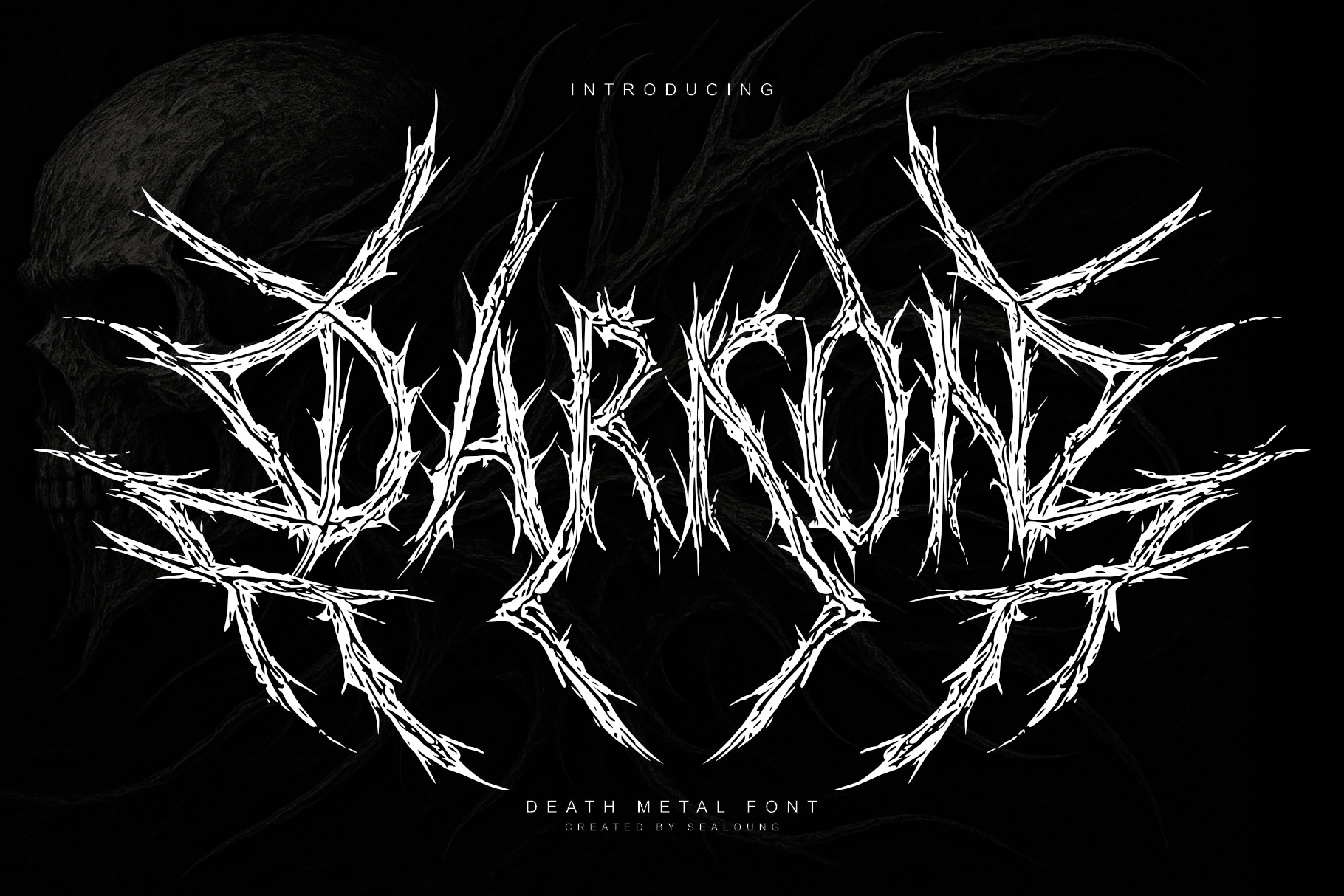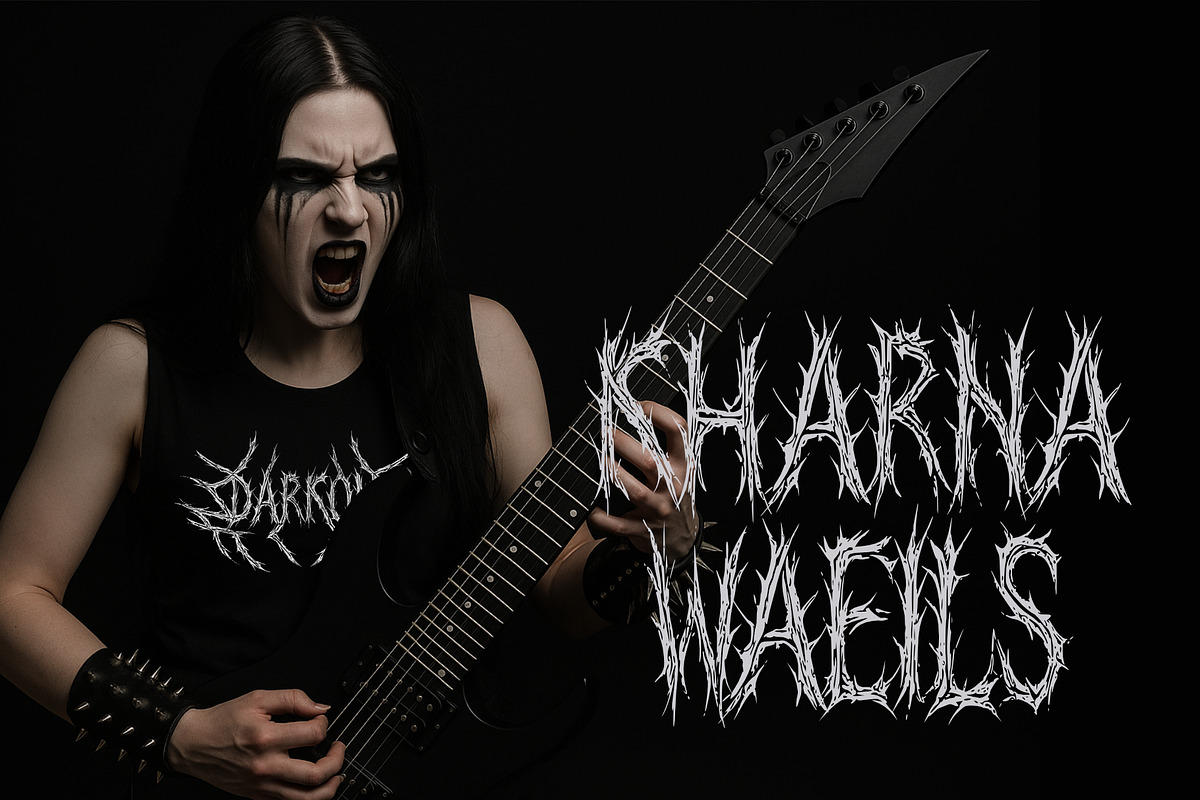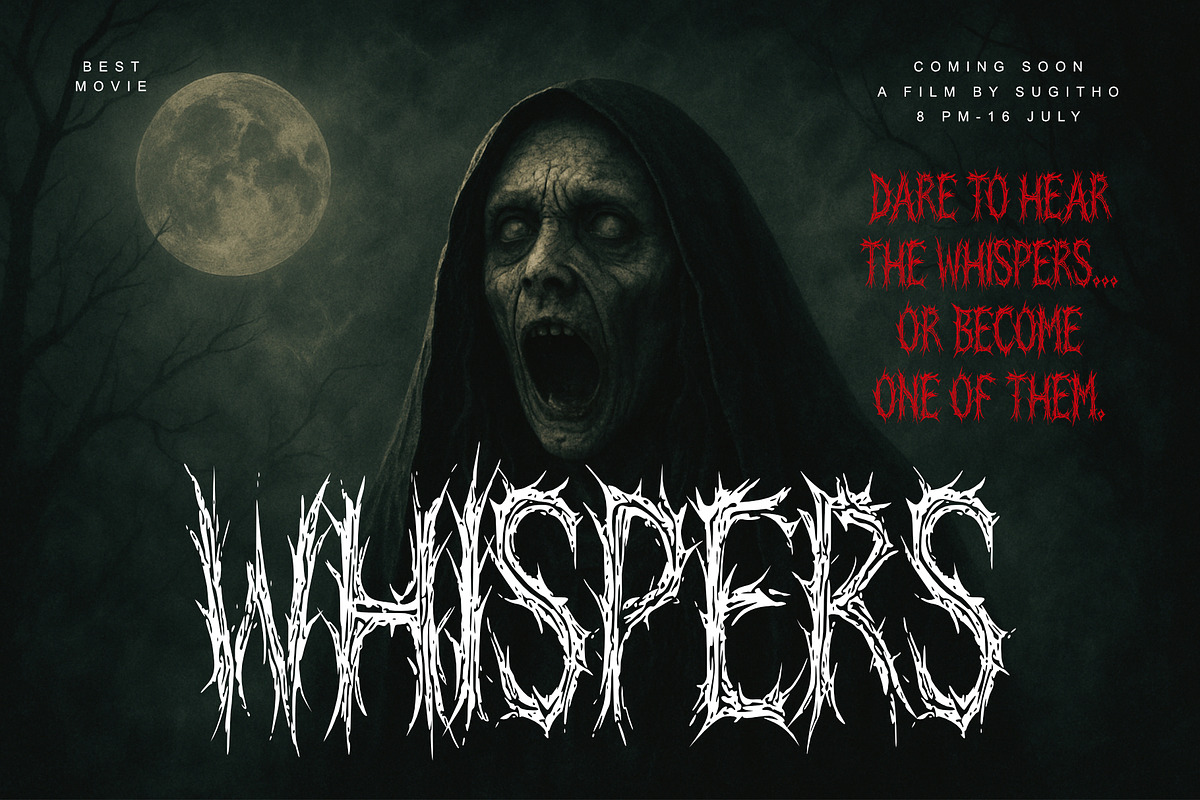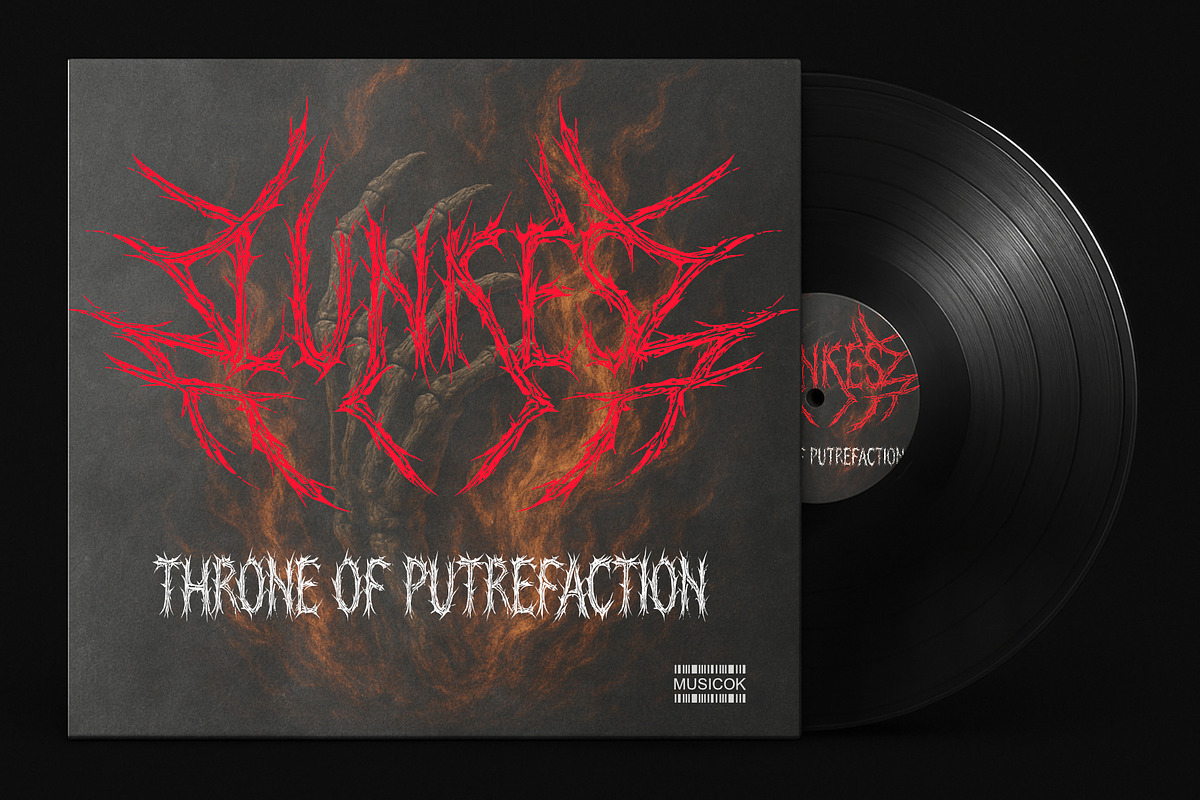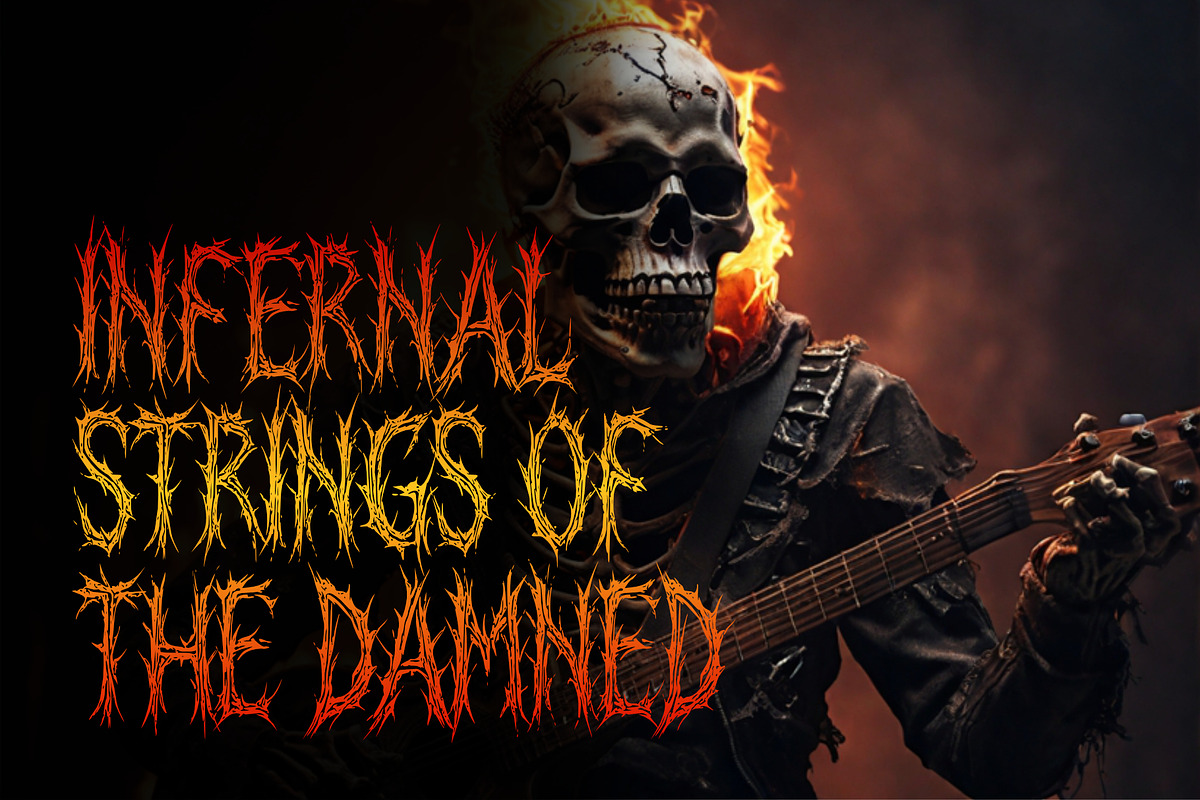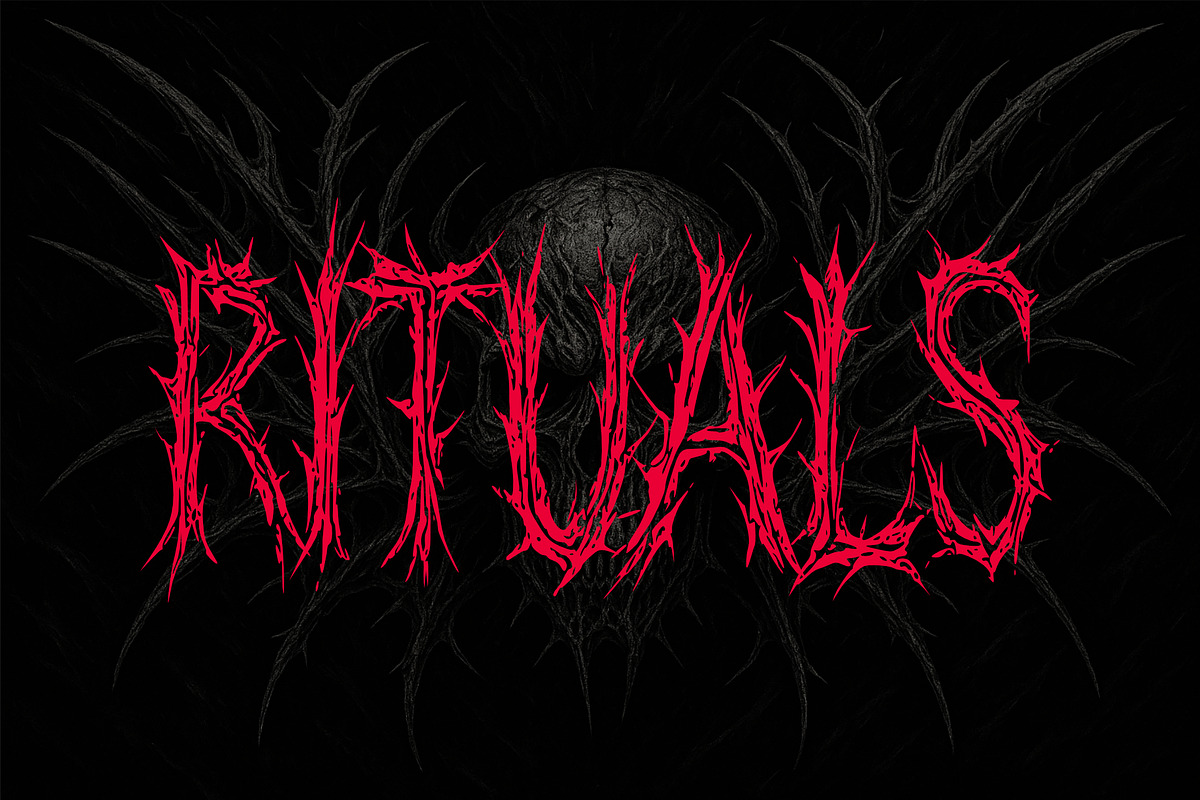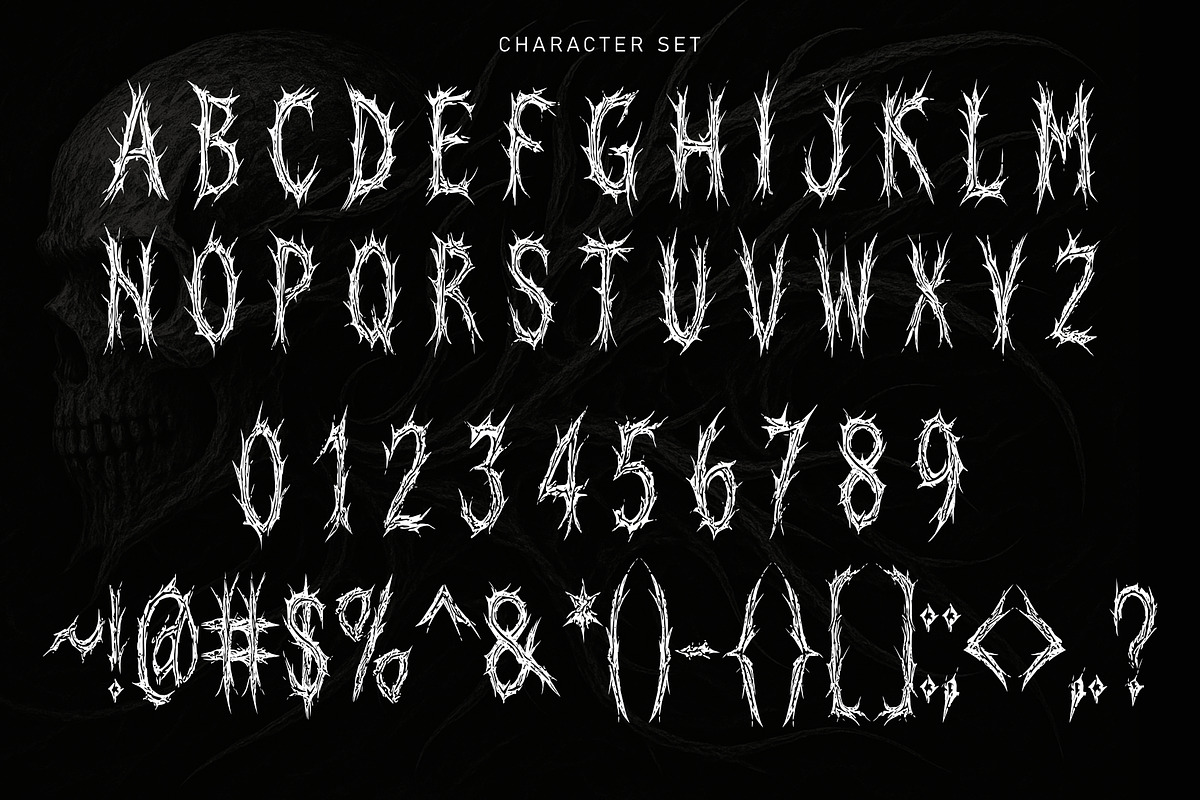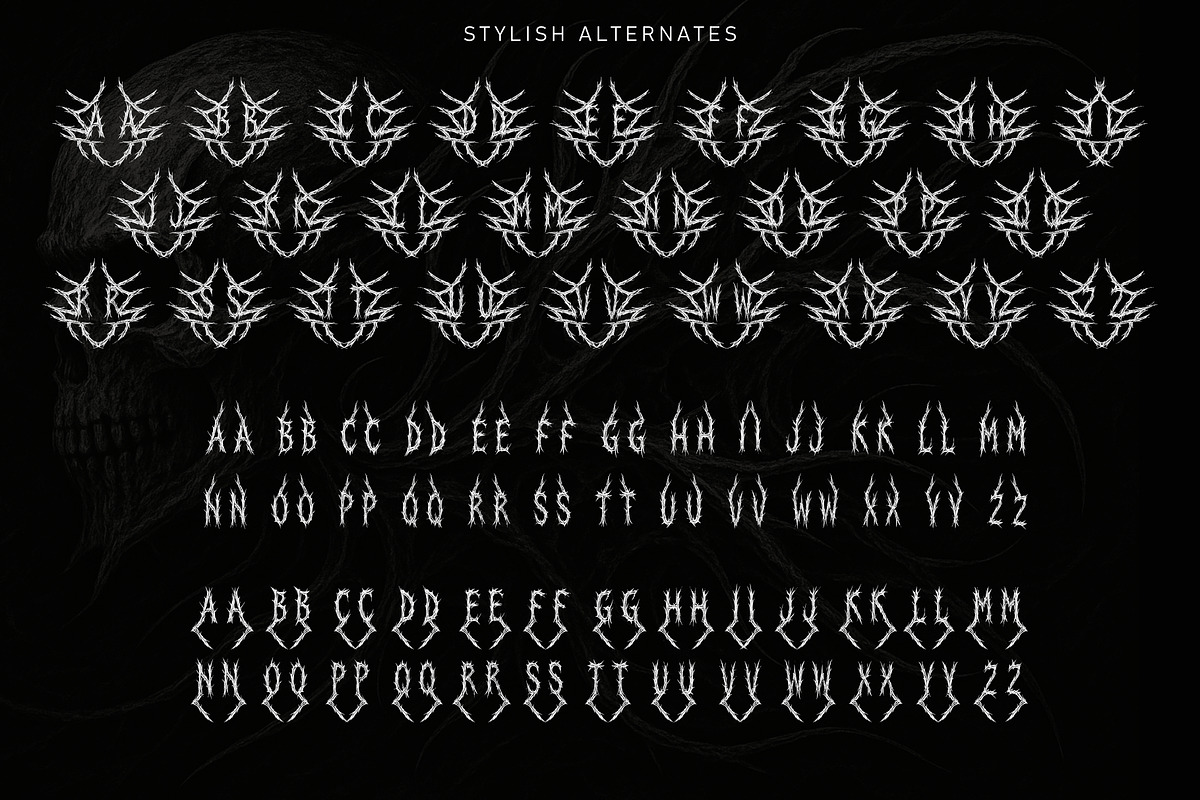
Darkon - Death Metal Font
Unleash the unholy force of darkness with Darkon—a modern death metal typeface born from the deepest voids of the underworld. Designed for creators who thrive on extremity, Darkon delivers a sharp, sinister visual identity that captures the raw energy of death metal, extreme metal, and underground subcultures.
With its rugged, distressed letterforms, Darkon tears through the silence like a cursed blade. Every glyph is soaked in raw, chaotic texture—echoing the jagged essence of torn flesh, cryptic runes, and the relentless fury of death-infused soundscapes. Darkon isn’t just a font—it’s a visual incantation of rebellion, darkness, and decay.
Perfect for band logos, album artwork, gig posters, apparel, and horror visuals, Darkon balances legibility with brutal aesthetics. Its textured construction demands attention—delivering visual impact with every slash, crack, and splatter. This is more than a typeface—it’s an invocation of filth, fury, and underground might.
Embrace the rot. Wield Darkon as your graphic weapon of darkness.
Full Uppercase Character Set